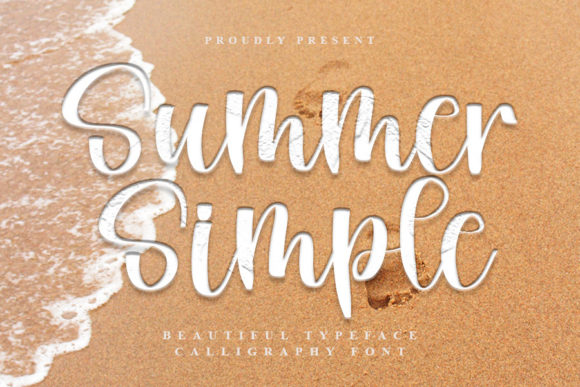
About Summer Simple Font
Summer Simple is a stunning script font that combines beauty and simplicity in a harmonious way. With its clean and smooth letterforms, this font adds a touch of elegance and class to any design.
Crafted with attention to detail, Summer Simple is specifically designed to bring a beautiful and refreshing look to your projects. The effortless curves and graceful strokes of each letter create a sense of simplicity and sophistication.
Whether you’re designing wedding invitations, branding materials, social media graphics, or any other project that requires a refined look, Summer Simple is the perfect choice. Its versatile style and timeless appeal make it well-suited for a variety of designs.
The simplicity of Summer Simple allows it to shine in various design applications. From minimalistic logos to elegant typography, this font brings a sense of beauty and sophistication to every project it is used in.
With its smooth and flowing script, Summer Simple adds a touch of grace and charm to your designs. The letters flow seamlessly, creating a visually pleasing and harmonious composition.
The legibility and clarity of Summer Simple make it suitable for both headline and body text usage. The balanced letterforms ensure that each character is visually appealing and easy to read.
Whether you’re looking for a font that brings a refreshing look to your designs or a simple and elegant script for your branding materials, Summer Simple delivers with its beautiful and clean aesthetic.
In summary, Summer Simple is a beautiful and smooth script font that exudes elegance and class. Crafted with attention to detail, it brings a refreshing look to your designs and adds a touch of sophistication. Embrace the simplicity and beauty of Summer Simple and elevate your projects with its elegant and refined style.